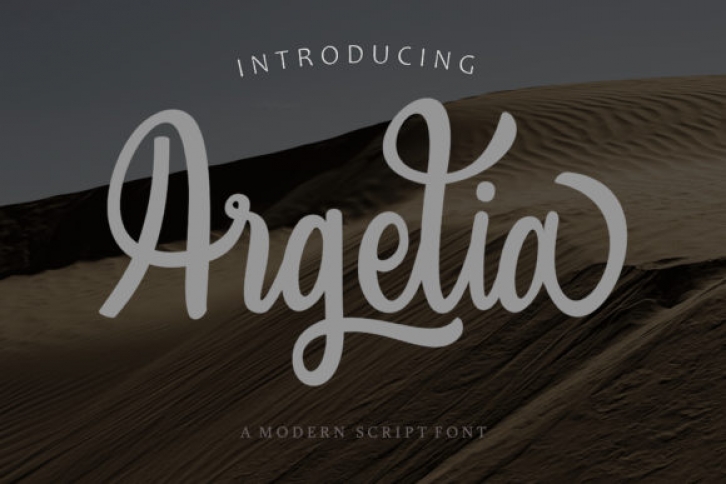
Argelia is an incredibly beautiful paint brushed script font. It has a classy, elegant and modern look that can be used for logos, branding, invitations, stationery, wedding designs, social media posts, and much more! Argelia is PUA encoded which means you can access all of the glyphs and swashes with ease!